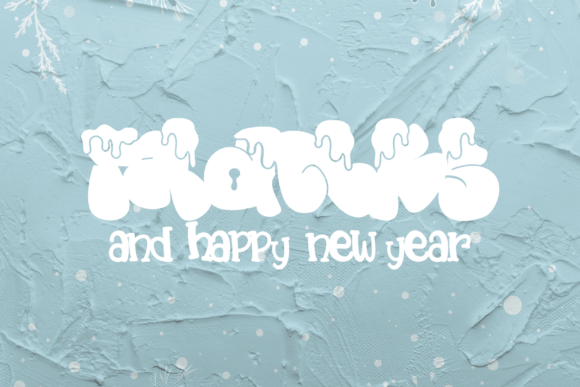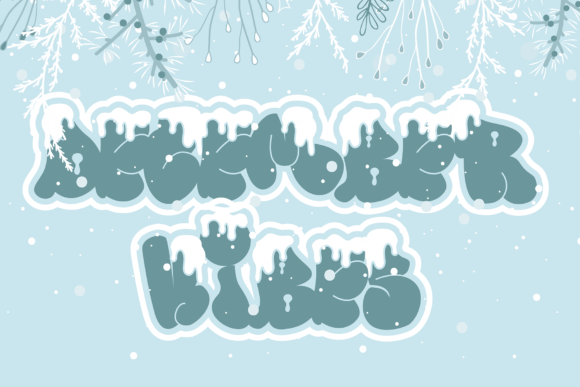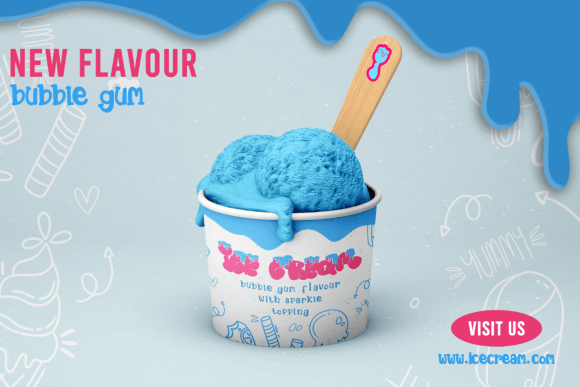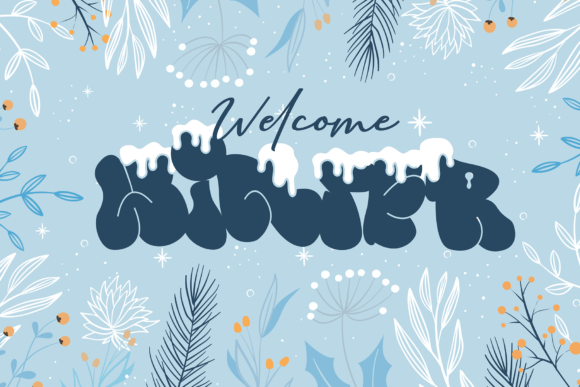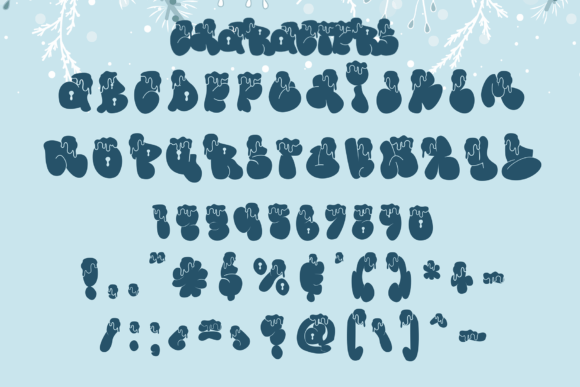
Introduction to Snow Bunny Font
Snow Bunny is a fun and bubbly decorative font with a snow decoration on the top of the characters.
It will elevate a wide range of design projects to the highest level, be it branding, headings, logotype, wall art illustrations, apparel, labels, and much more .
Key Features of Snow Bunny Font